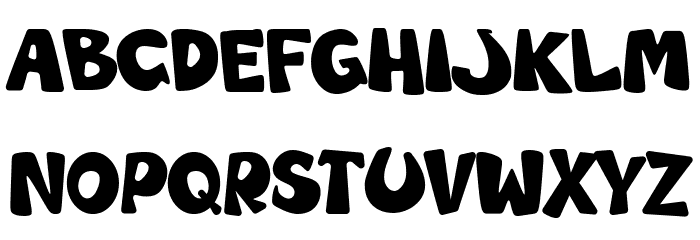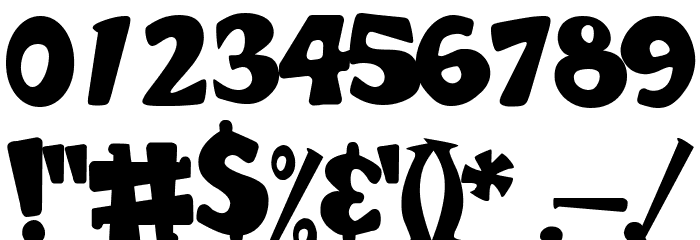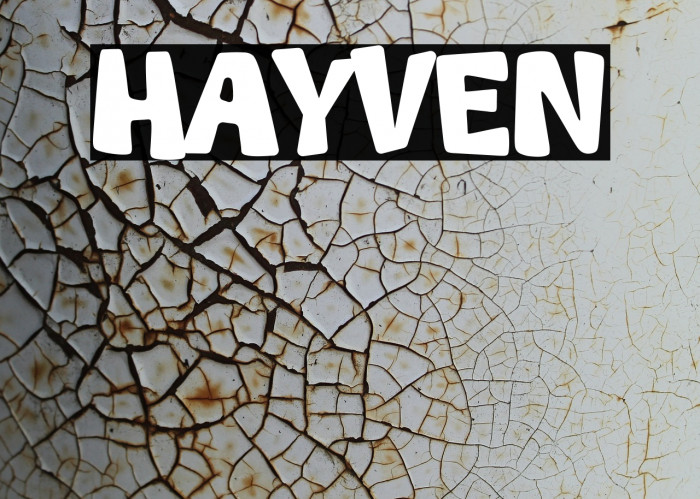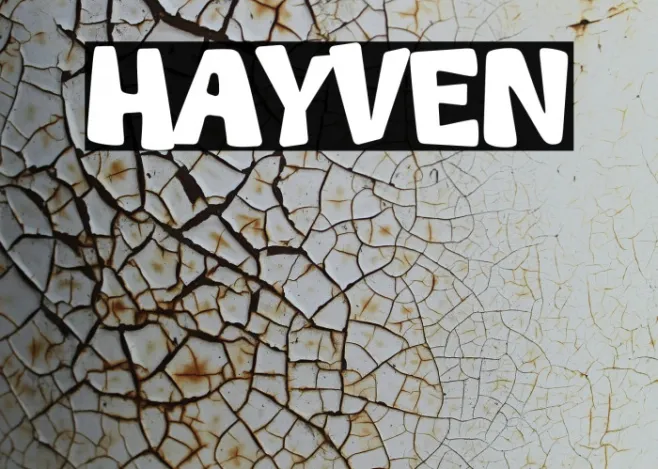
Hayven Font
This font features bold, playful characters with a distinctly rounded and chunky appearance. The letters are uniformly thick, giving it a cohesive and strong visual impact. The style is reminiscent of comic book lettering, with exaggerated curves and a slightly informal feel. The numbers and special characters maintain the same boldness and playful style, ensuring consistency across all glyphs. This font is highly legible and stands out due to its unique, eye-catching design.
A bold, playful font with rounded, chunky characters.
- Proposed Projects: Ideal for children's books, comic strips, playful branding, and eye-catching posters.
- Overall Style: Playful, Comic
- Use Case: Headlines, Posters, Branding